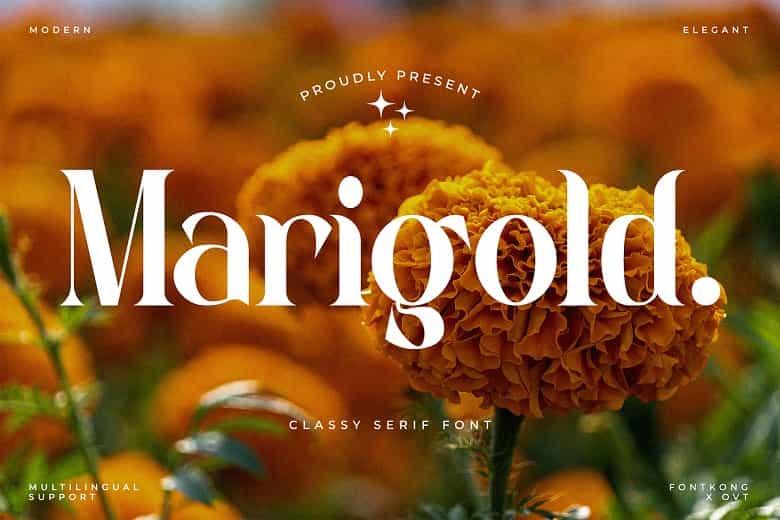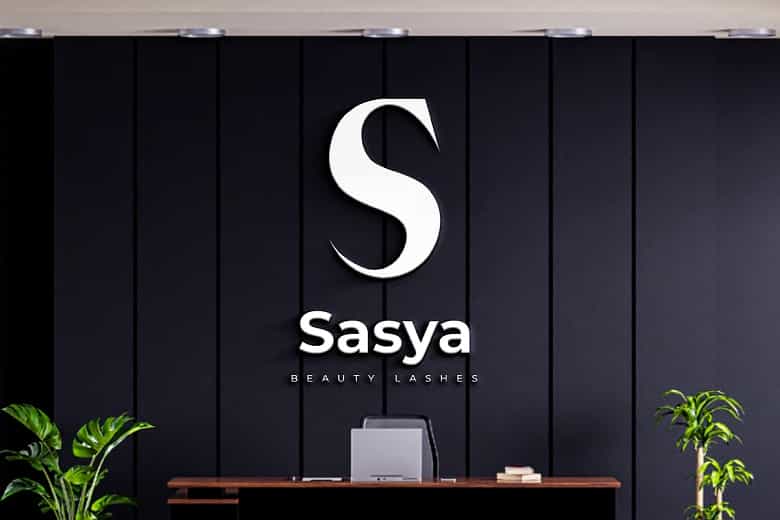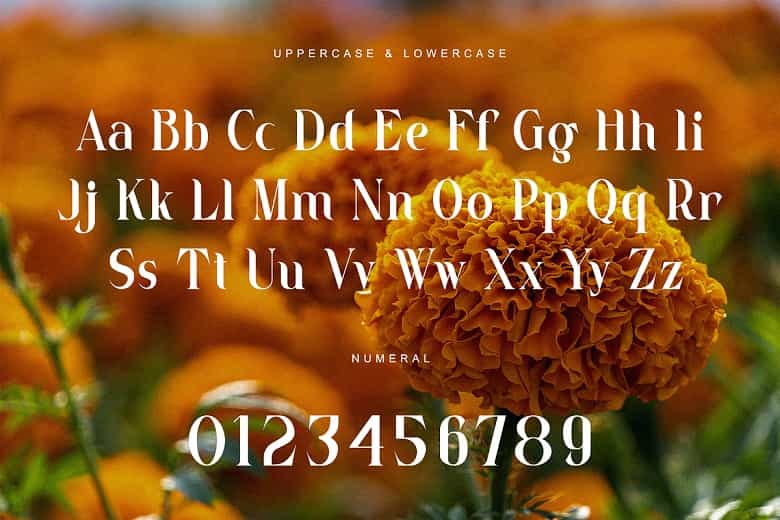
Marigold is an elegant serif font that has got the perfect blend of vintage beauty and contemporary sophistication. It is ideal for graphic designers, typographers and other creative professionals who are in need of a sophisticated font design that can give a professional look to any project.